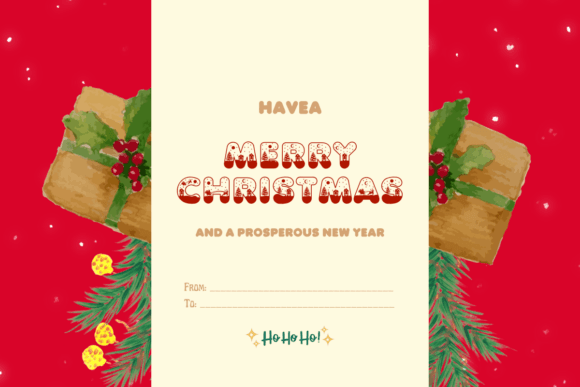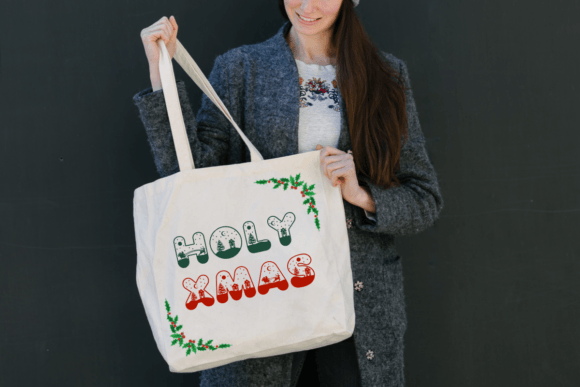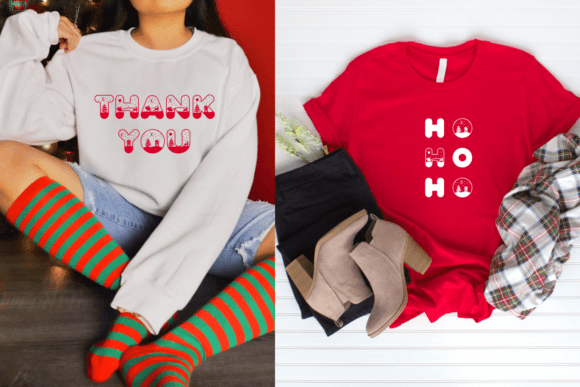
Introduction to Holy Xmas Font
As you sit by the fireplace, surrounded by twinkling lights and the faint scent of pine, the holiday season begins to feel truly magical. And what better way to capture that essence than with a font that brings the winter wonderland to life? The Holy Xmas Font is a festive decorative font that will transport your designs to a snowy haven, complete with tiny holiday-themed images like snowflakes, trees, and stars.
This free download is a high-quality design resource that will elevate your creative projects, from festive cards and banners to seasonal designs. With its transparent background, you can easily layer it over your favorite images or use it as a standalone element. Whether you’re a seasoned designer or a crafty enthusiast, the Holy Xmas Font is a valuable addition to your toolkit, guaranteed to add a touch of holiday cheer to your work.
- High-quality design resource ideal for creative projects and holiday-themed graphics
- Includes multiple font styles and variations for added versatility
- Unique, festive design perfect for Christmas and holiday-themed creative projects
Honest Review: Holy Xmas Font
I recently came across the Holy Xmas Font, a free download that promises to bring some festive cheer to my creative projects. As a designer, I was excited to dive in and see what it had to offer.
- High-quality design: The font is crisp and clear, making it perfect for a variety of design applications.
- Transparent background: This allows for easy use with other design elements, giving you more flexibility in your projects.
- Wide range of uses: The Holy Xmas Font is great for holiday-themed projects, but it can also be used in other creative contexts, such as gift wrapping or card design.
- Limited customization options: While the font itself is high-quality, there are limited options for customizing the design.
- May not be suitable for large-scale use: The Holy Xmas Font is best suited for smaller design projects, as it may not scale well for larger applications.
Overall, the Holy Xmas Font is a solid design resource that can add some festive flair to your projects. While it has some limitations, its high-quality design and transparent background make it a great choice for designers looking for a free download.
Tips for Getting the Most Out of Holy Xmas Font
Use the Holy Xmas Font in conjunction with a transparent background to create a festive and eye-catching design. Experiment with different font sizes and styles to add visual interest to your project.
The Holy Xmas Font is perfect for holiday-themed designs, including Christmas cards, invitations, and gift tags. It’s also great for creating a festive atmosphere in your home or office with custom signage and decorations.
Is Holy Xmas Font a high-quality design resource?
Yes, Holy Xmas Font is a high-quality design resource. It is designed to be clear and readable, making it perfect for use in a variety of creative projects, including holiday-themed designs, invitations, and greeting cards.